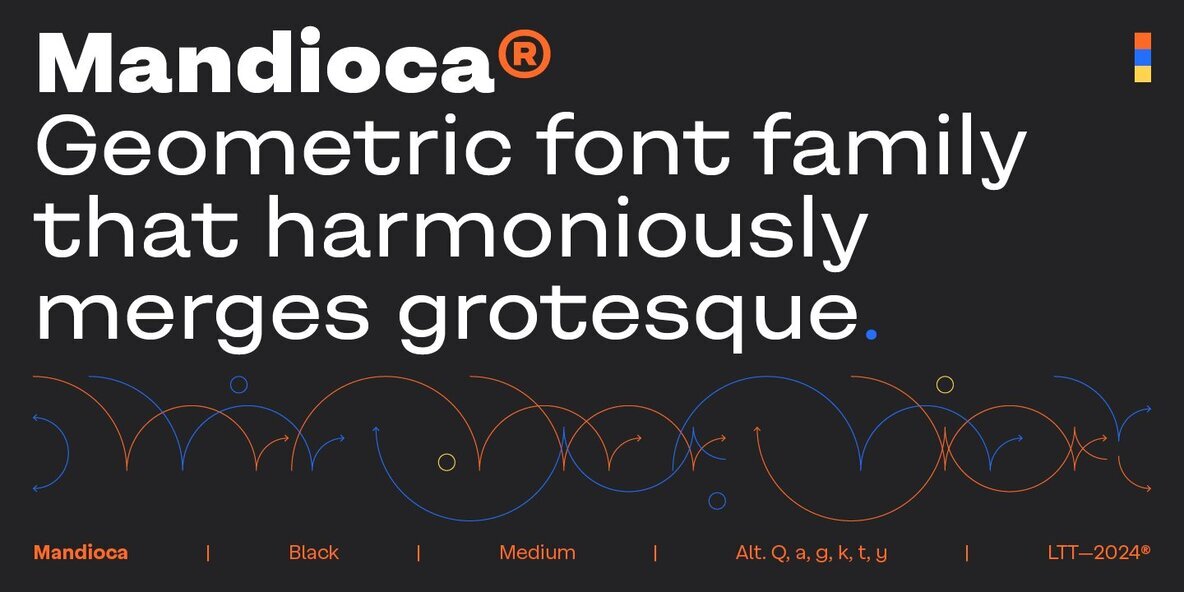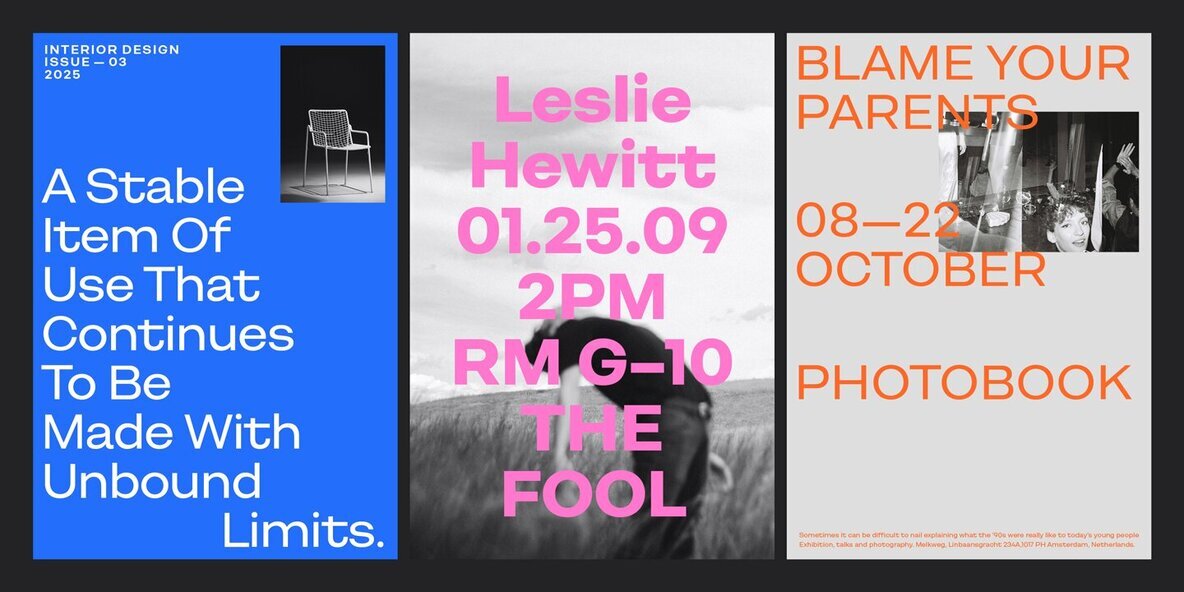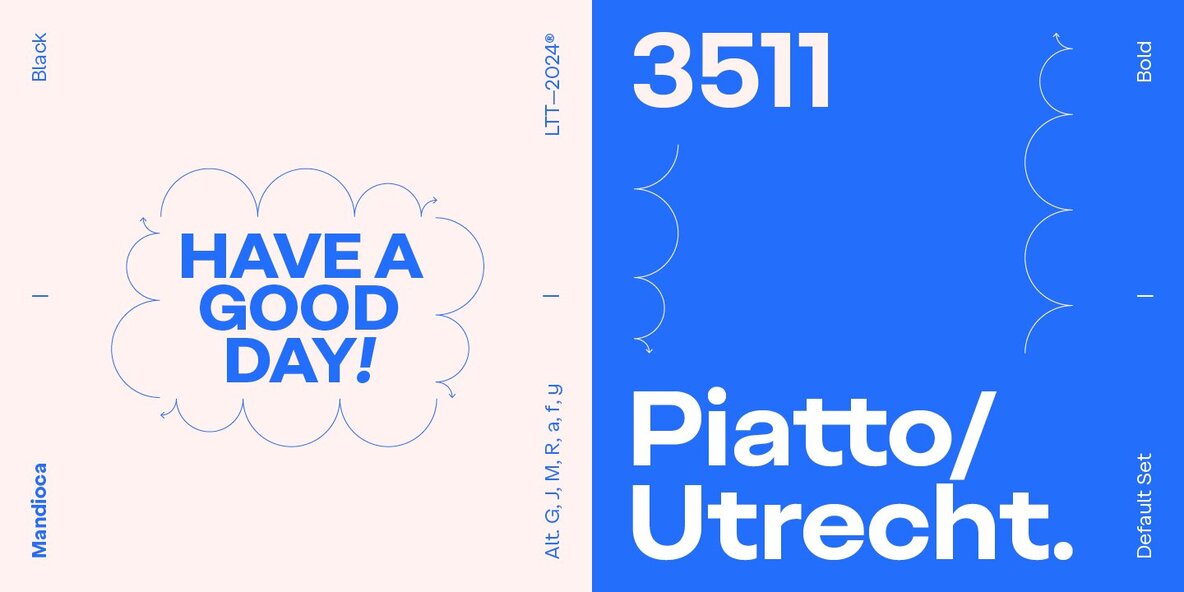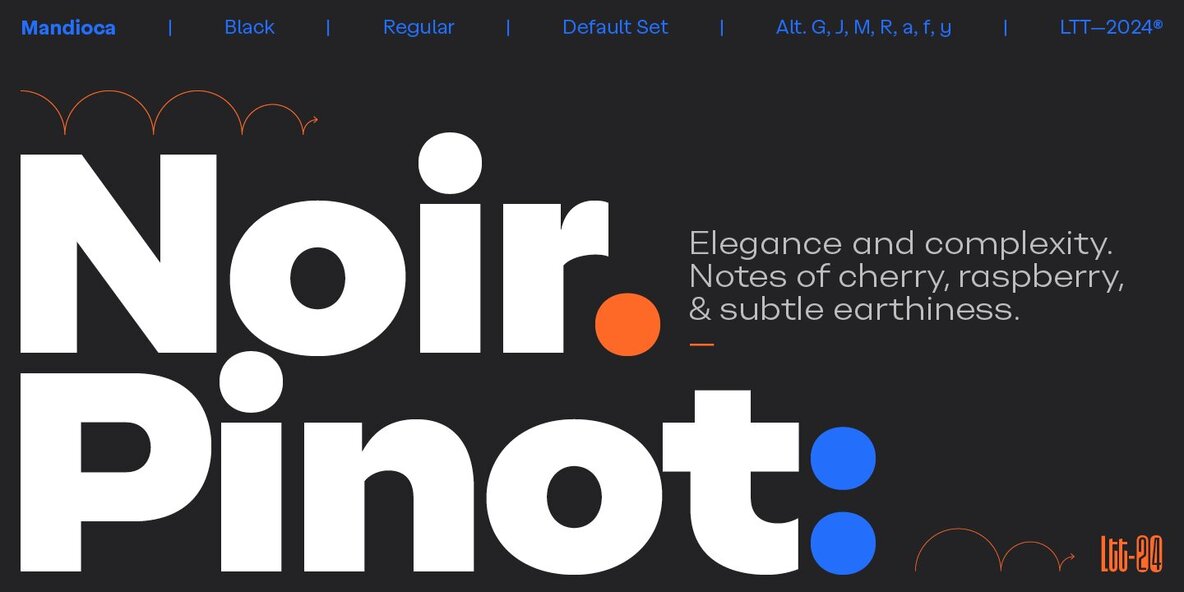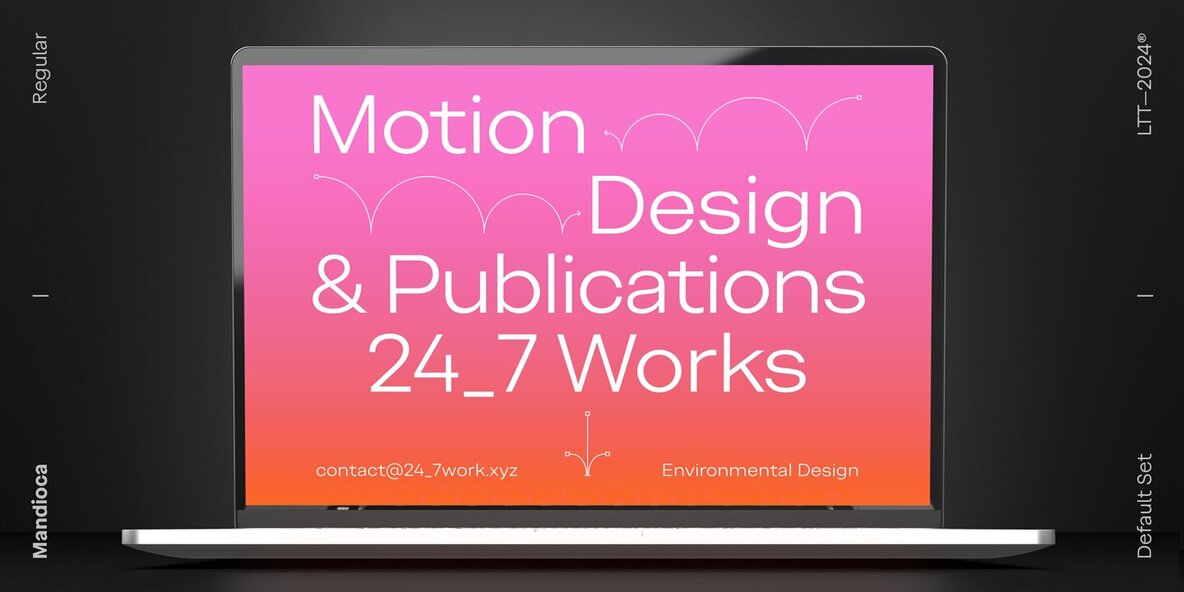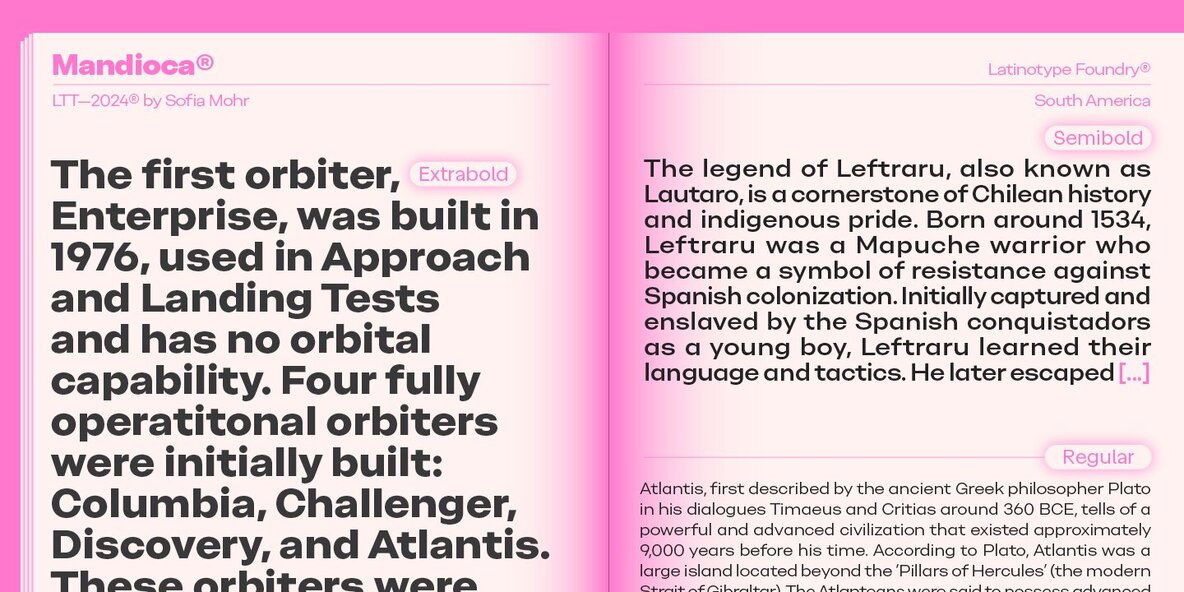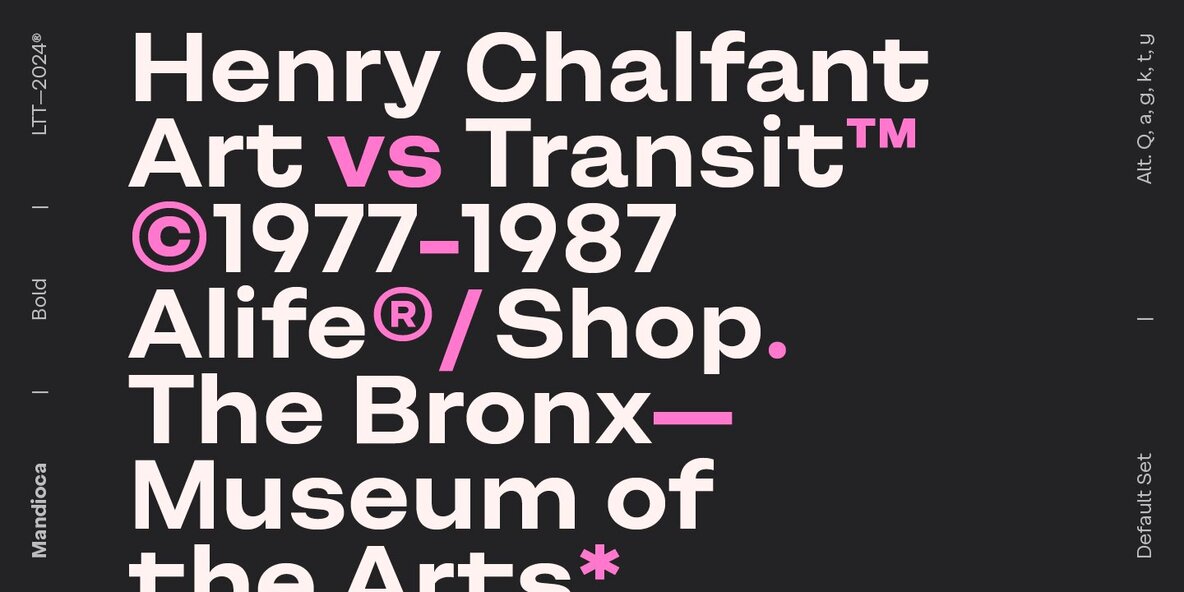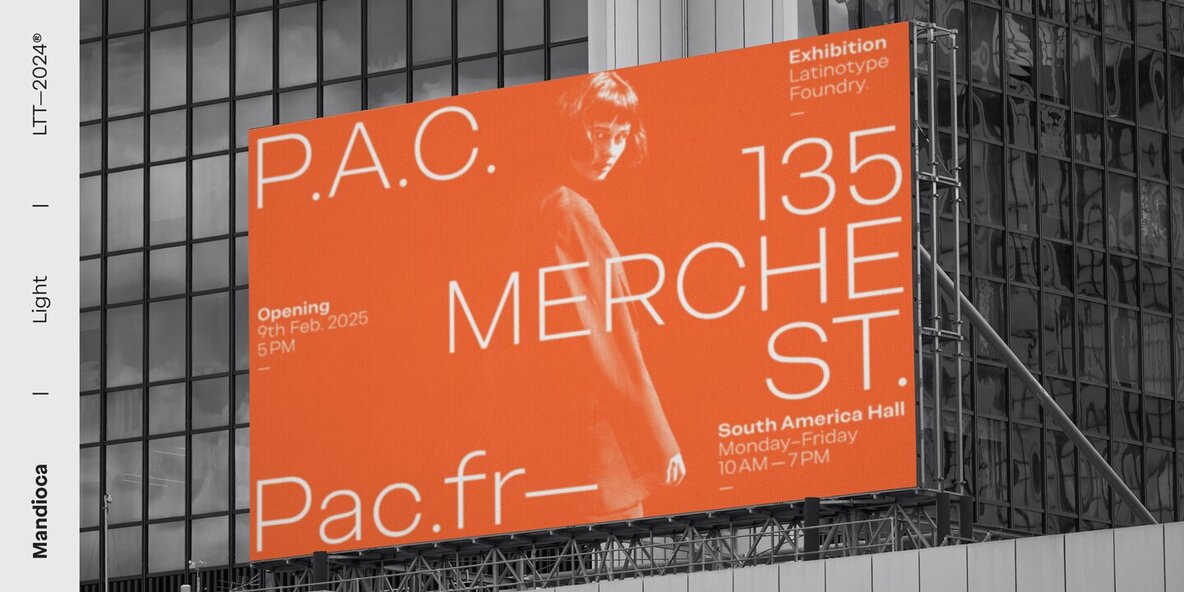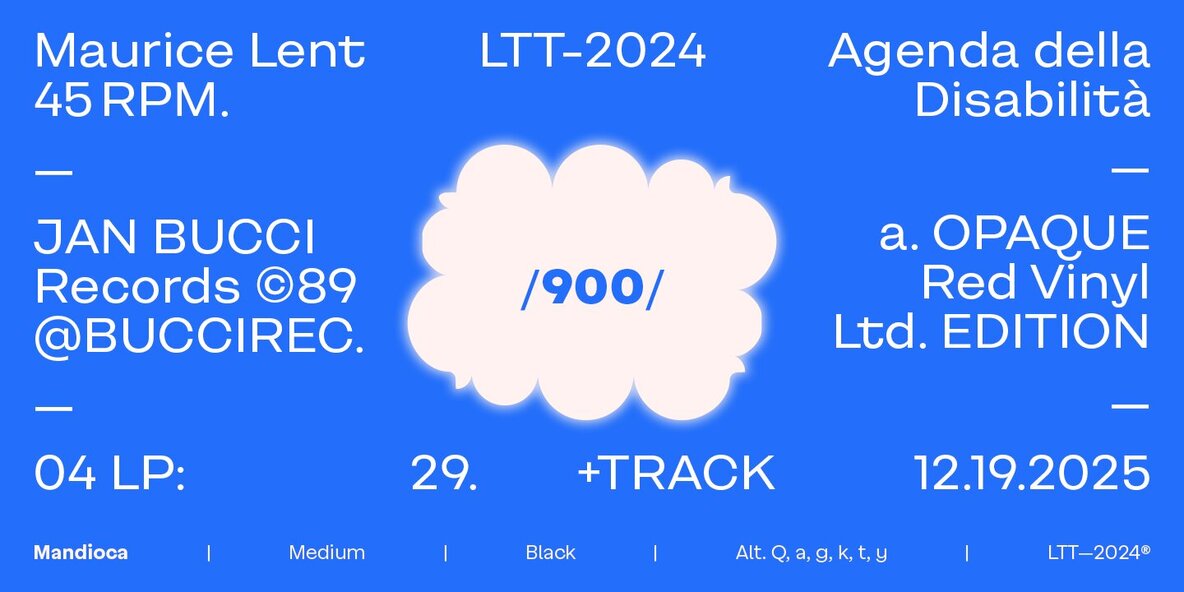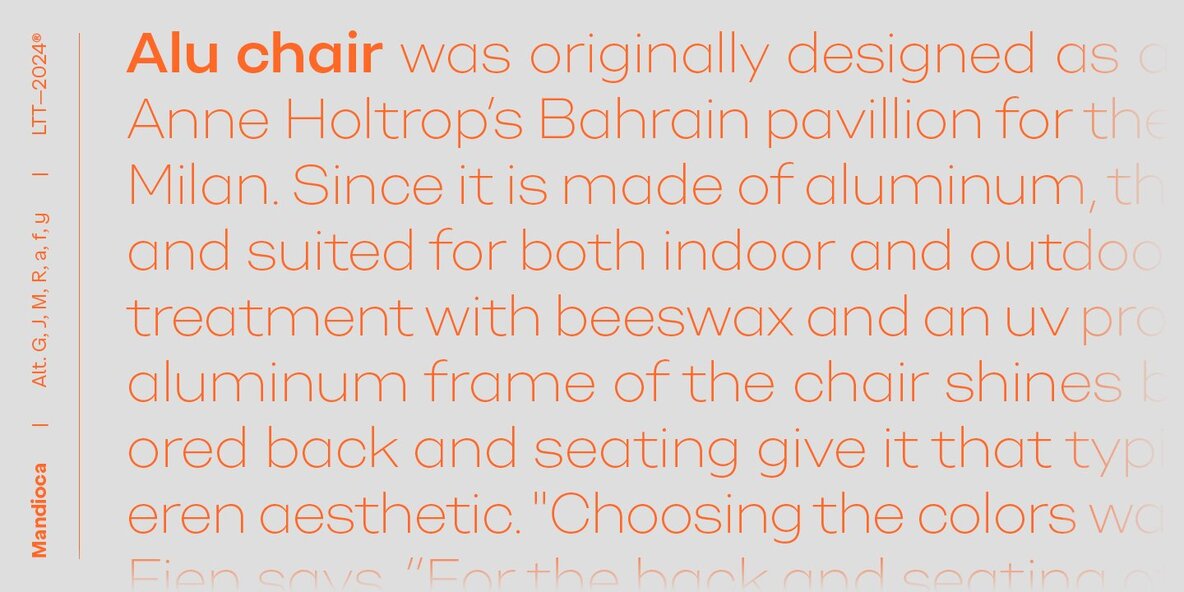
Mandioca Font
Mandioca is a geometric font family that artfully combines grotesque elements with a distinct character, offering a versatile typeface suited for various design needs. Its design showcases wide proportions and closed ends with straight cuts, contributing to its modern and timeless appeal. The large 'x' height, paired with short ascenders and descenders, enhances legibility across different applications, while selective modulation adds a unique flair to the overall appearance.
With a total of 18 styles, including 9 Roman and 9 Italic variations, Mandioca provides designers with a broad spectrum of weights and styles to choose from. Its robust character and clear legibility make it an ideal choice for projects requiring both versatility and a strong visual presence. Whether used for headlines, body text, or branding, Mandioca's unique identity ensures that it stands out in any design context.